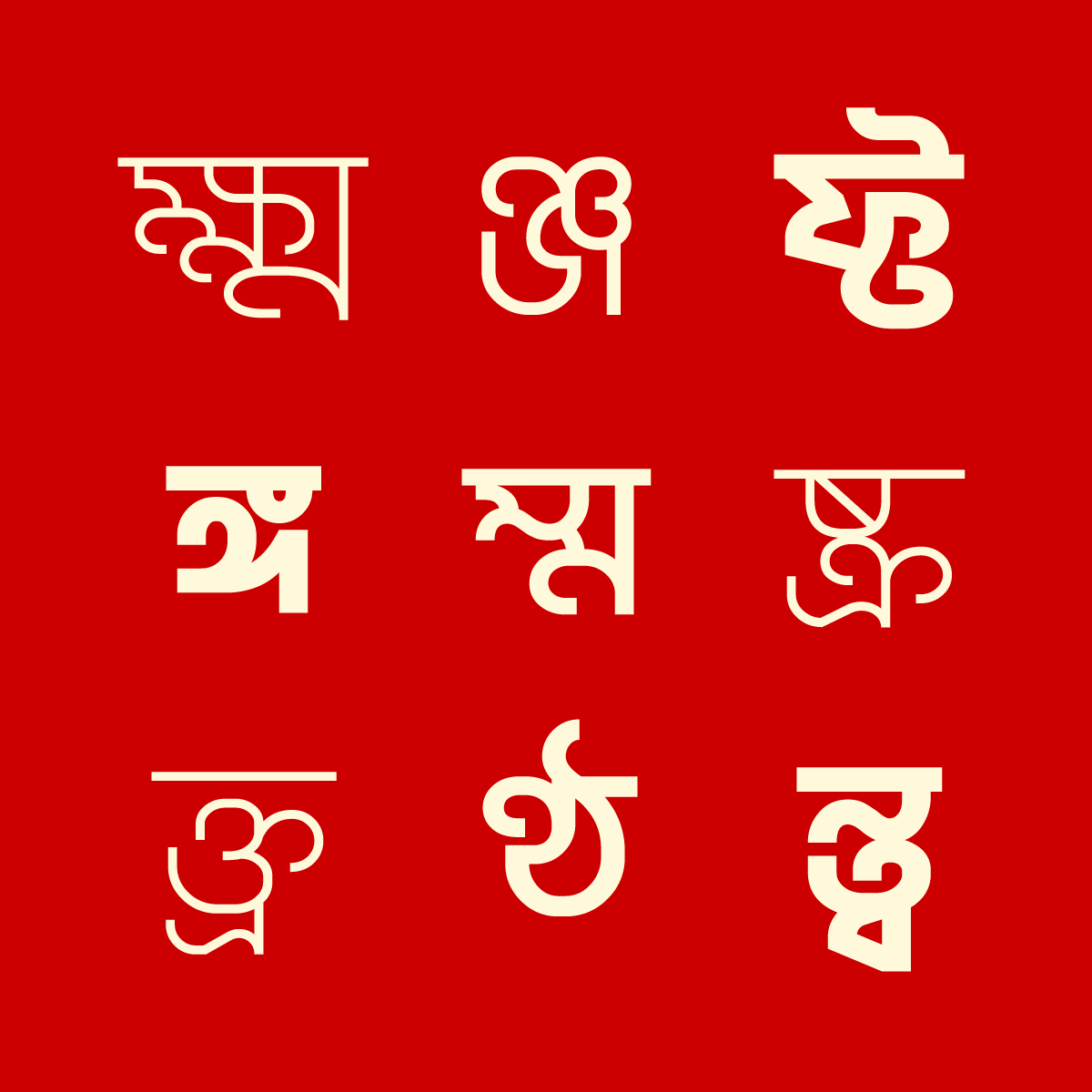
Ador Noirrit is a free multiweight and variable Bengali / Bangla font of Lipighor Font Foundry, designed and developed by Nurul Alam Ador. You can use this as an Assamese font also. You can use Ador Noirrit font in any type of commercial and personal design for free. To download Ador Noirrit font for free, visit the Lipighor website now.